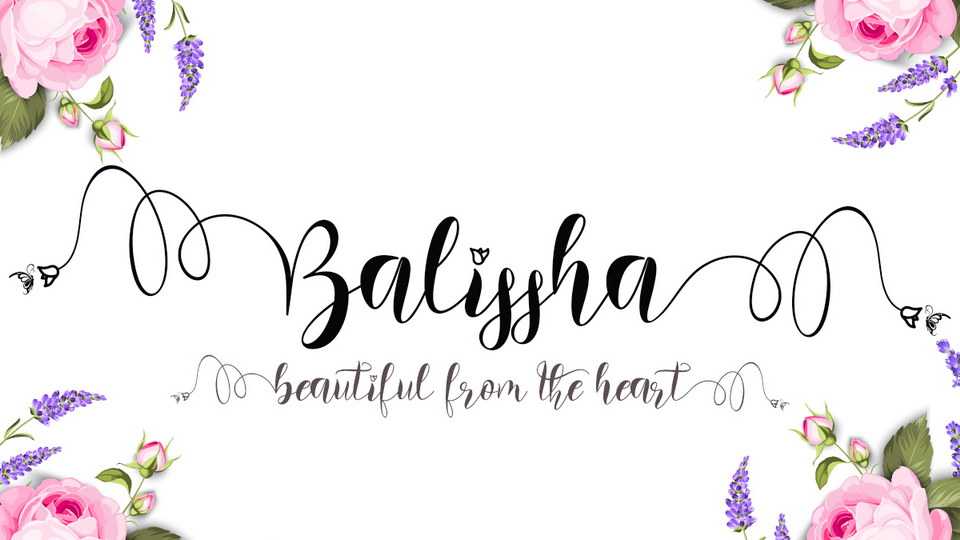
Download Balissha font, a modern calligraphy typeface that is made with a subtle touch, resulting in a very beautiful, elegant font suitable for all types of your work.